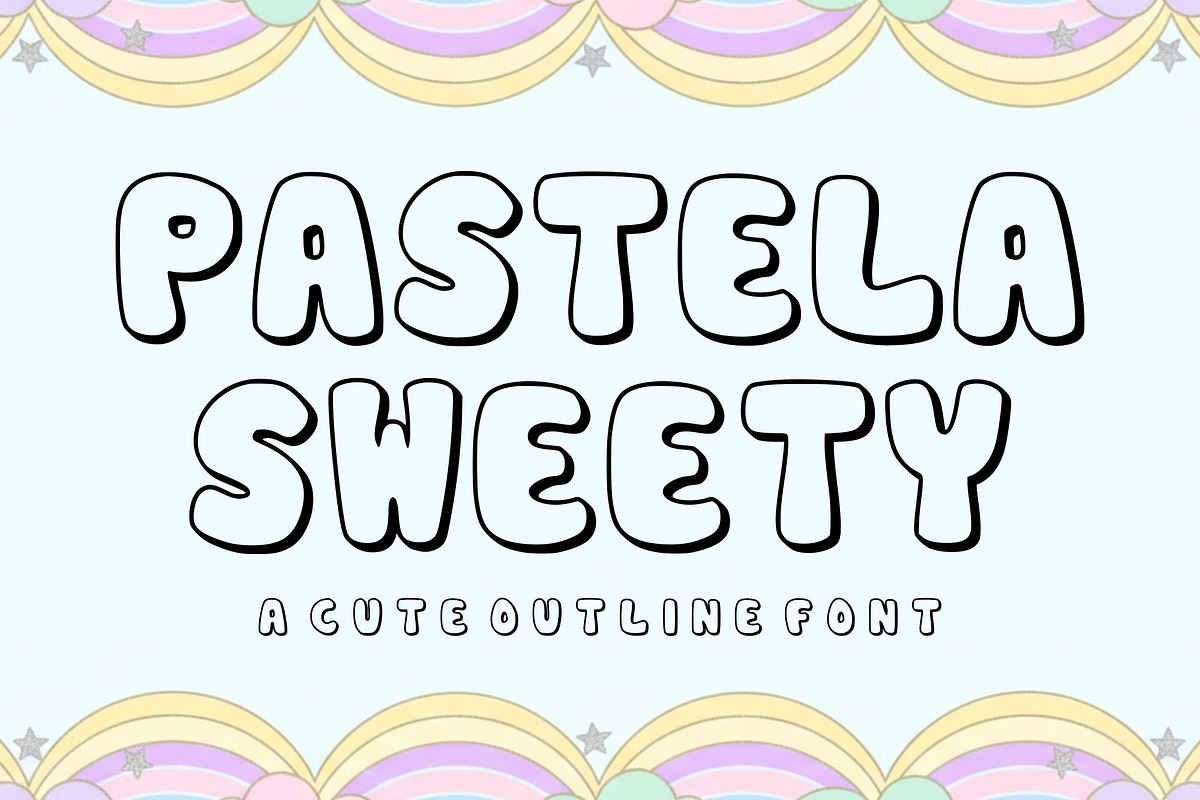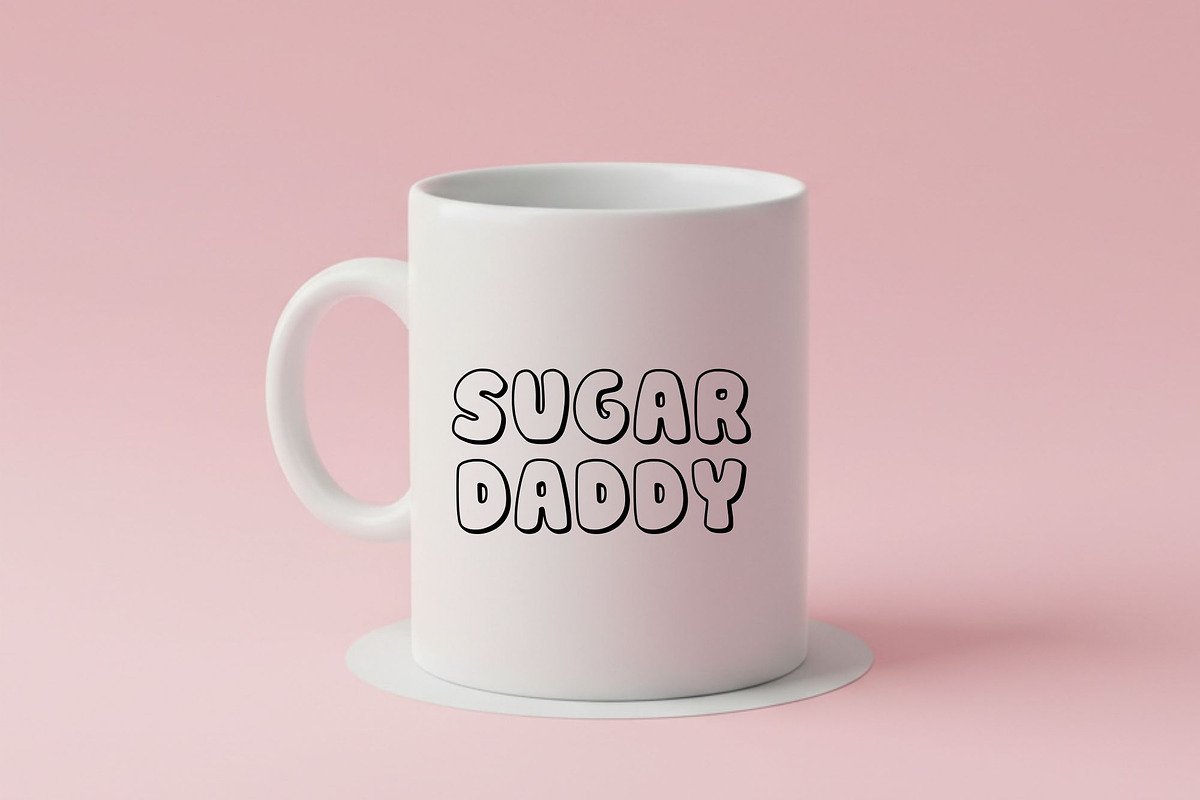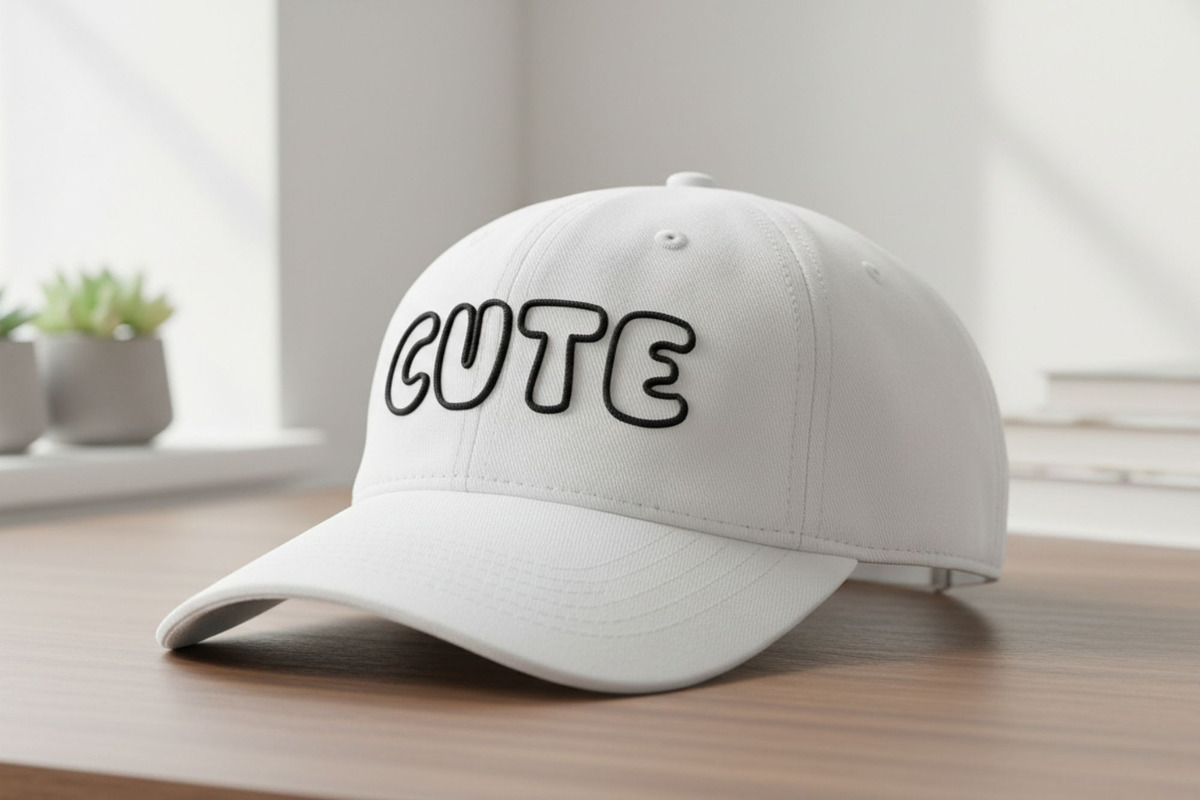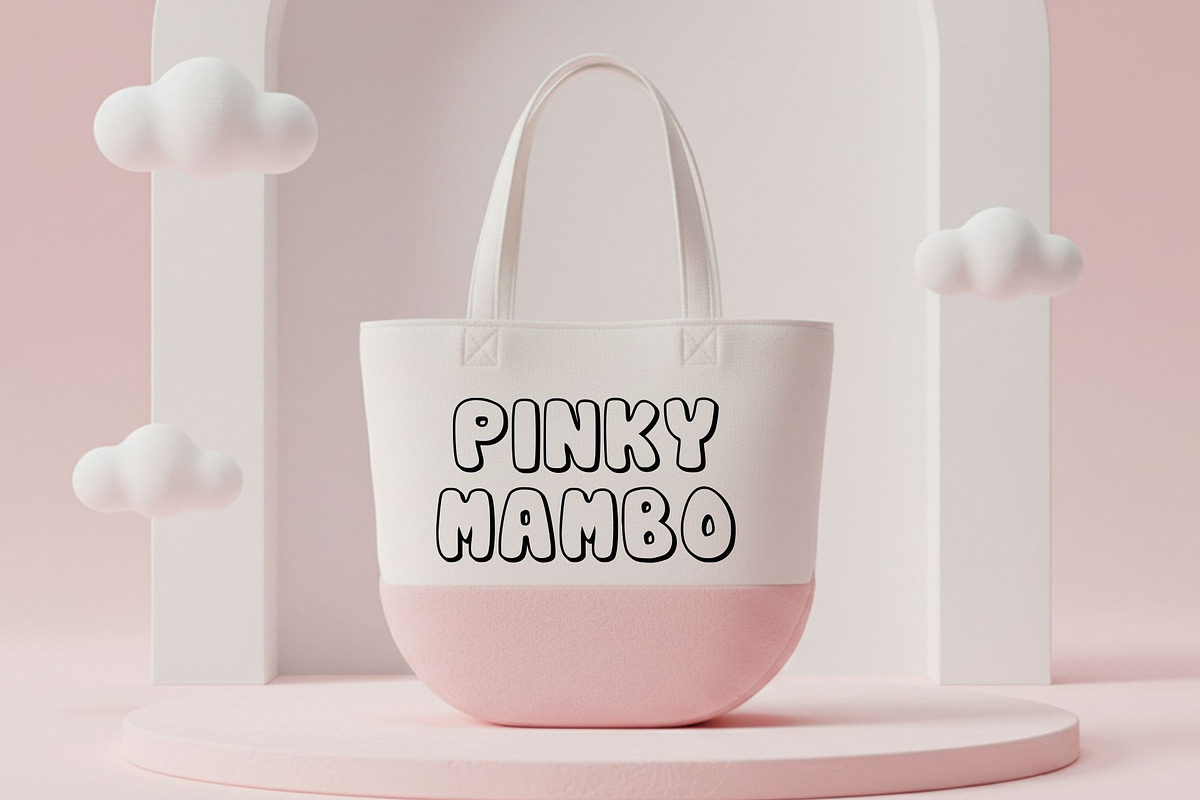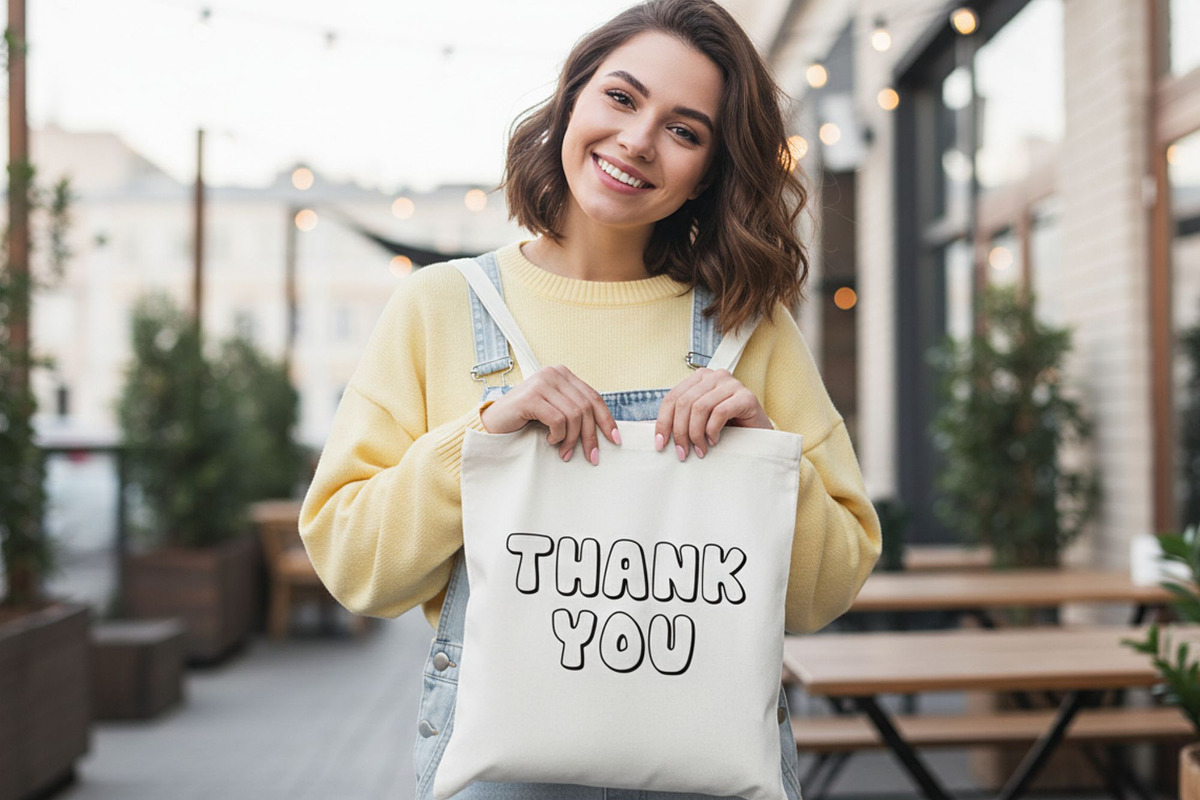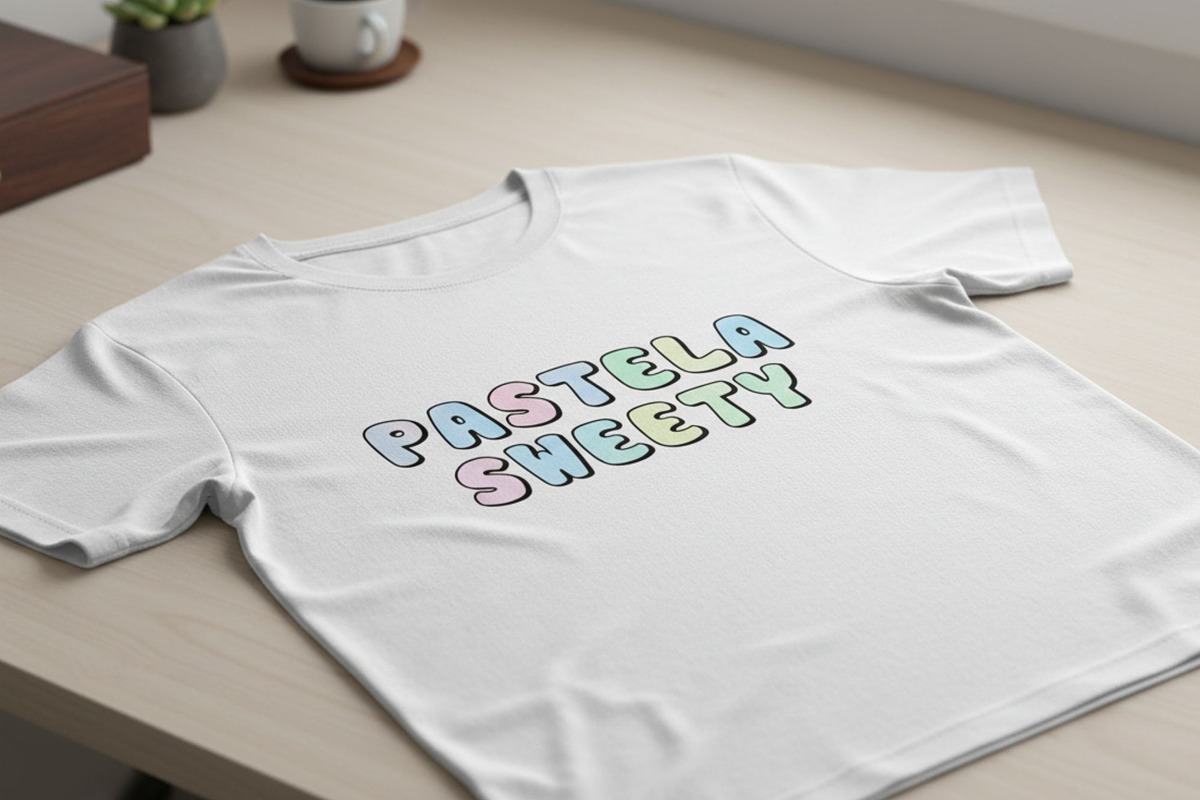
Pastela Sweety
Pastela Sweety is a cute and playful outline font designed to bring a soft, cheerful, and whimsical touch to your creative projects. Featuring rounded bubble-style characters with clean outlines, this font is perfect for kids-themed designs, pastel aesthetics, branding, and fun typography needs.
Its sweet and friendly appearance makes it ideal for invitations, stickers, t-shirt designs, social media graphics, packaging, and more. Whether you’re creating for birthdays, baby showers, or kawaii-inspired artwork, Pastela Sweety will add charm and personality to your designs.